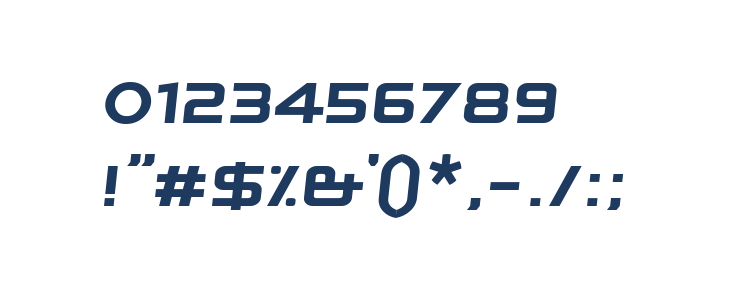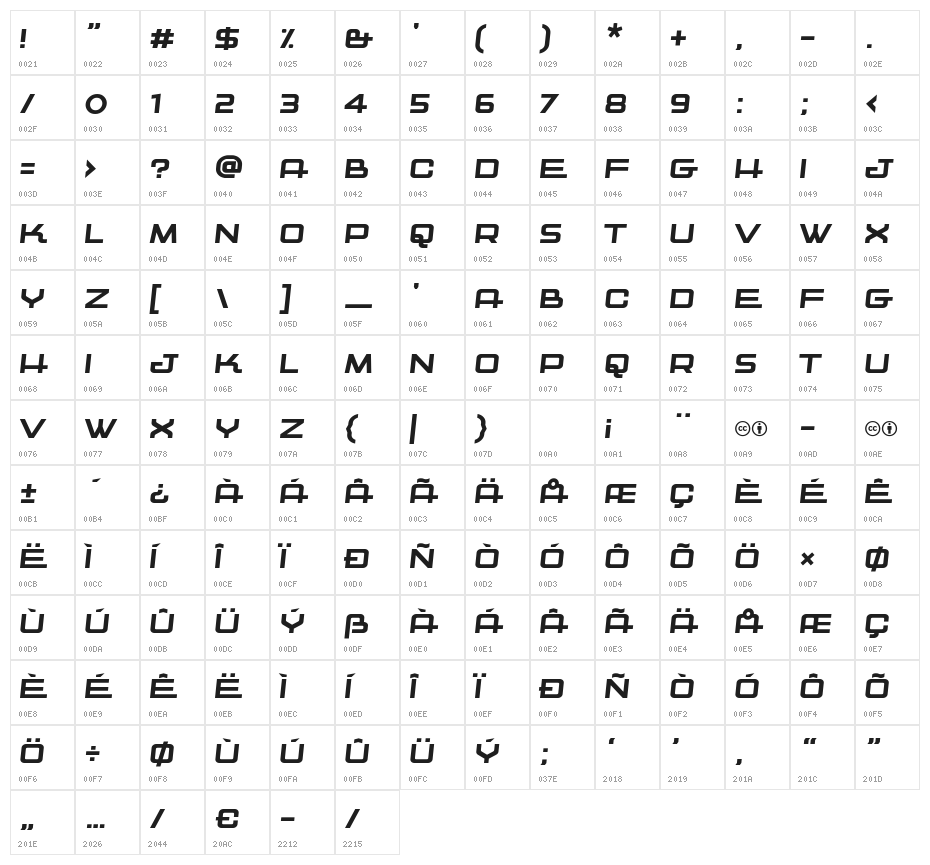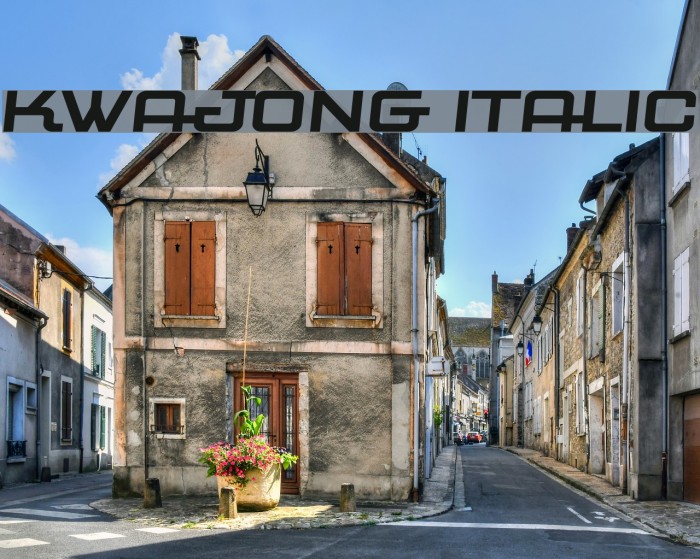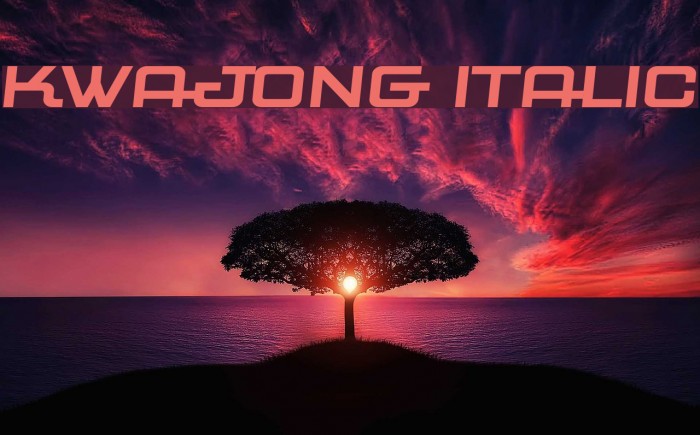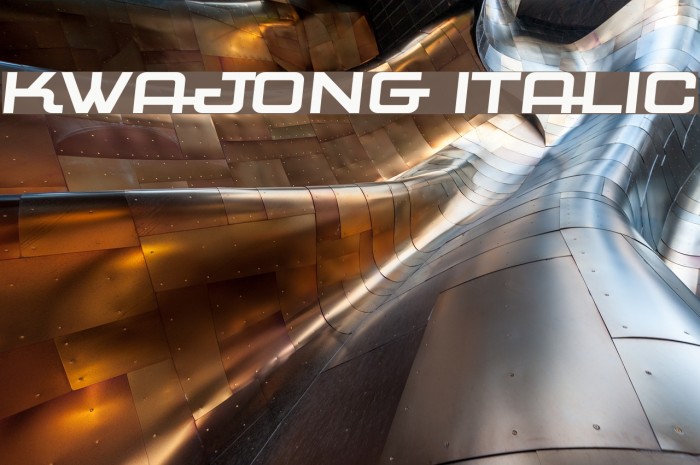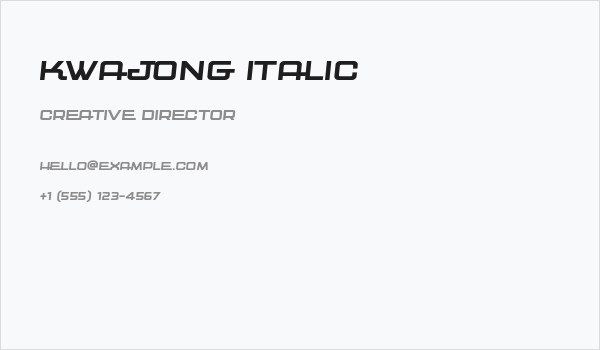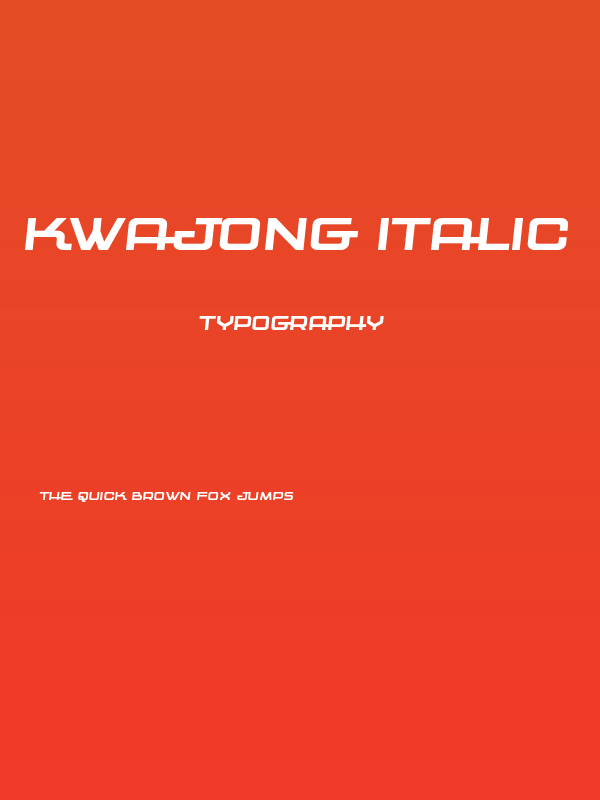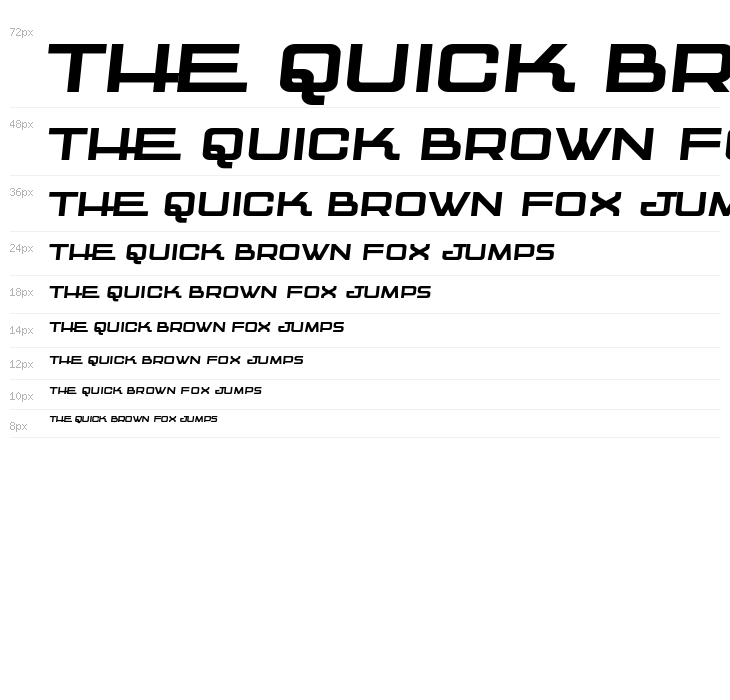
Kwajong Italic Font
Kwajong Italic Description
This font features a modern, italicized style with a sleek and futuristic appearance. The characters are slightly slanted, giving a sense of motion and dynamism. The strokes are consistent in thickness, providing a uniform look across all characters. The design is clean and minimalistic, with a geometric influence that enhances its contemporary feel. The numbers and special characters maintain the same aesthetic, ensuring cohesion throughout. This font is ideal for projects that require a modern and stylish touch.
Use CaseHeadlines, Logos, Digital interfaces
Proposed ProjectsIdeal for technology branding, modern advertising, and digital interfaces.